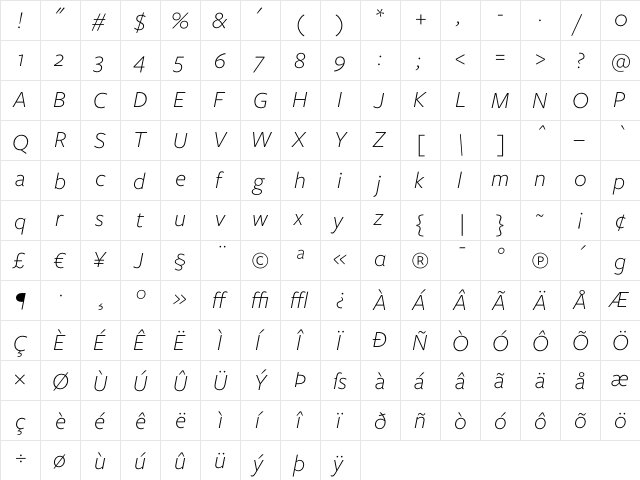
Freight Sans Light Italic
| Foundry | Joshua Darden & Phil's Fonts, Inc |
| Designer | Joshua Darden |
Design Context for Freight Typeface
Freight is a composed and adaptable typeface that performs quietly and consistently across a wide range of design contexts. Its italic angle brings a sense of urgency and motion to the letterforms. Its slender proportions lend an understated elegance to any composition.
Pro Tip: Use Freight for emphasis, pull quotes, and subheadings where its slanted energy can add rhythm to the layout.